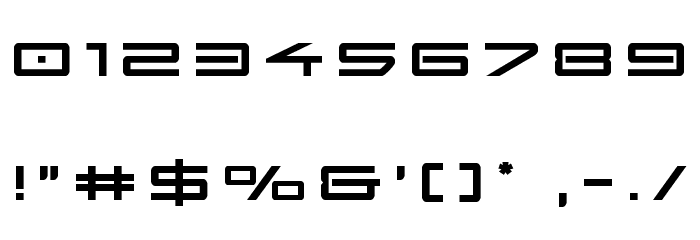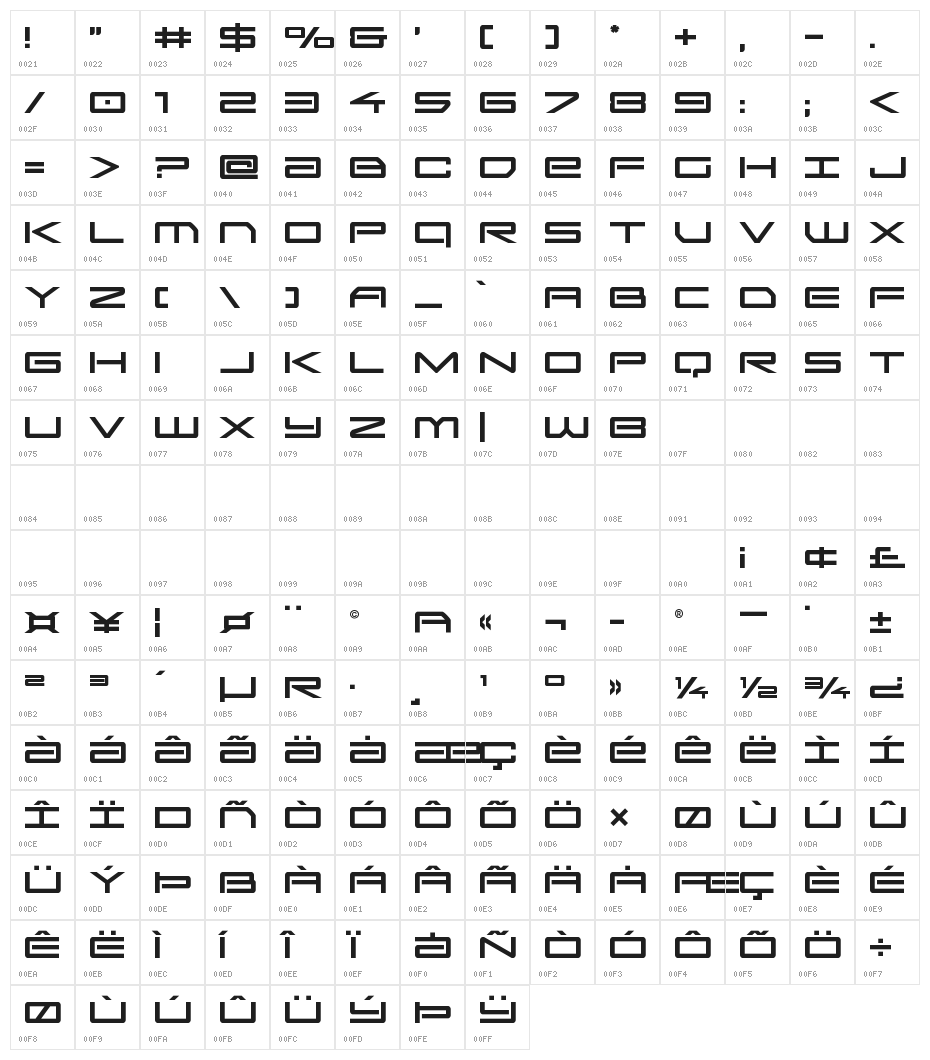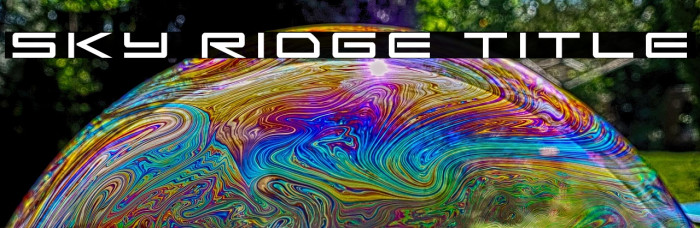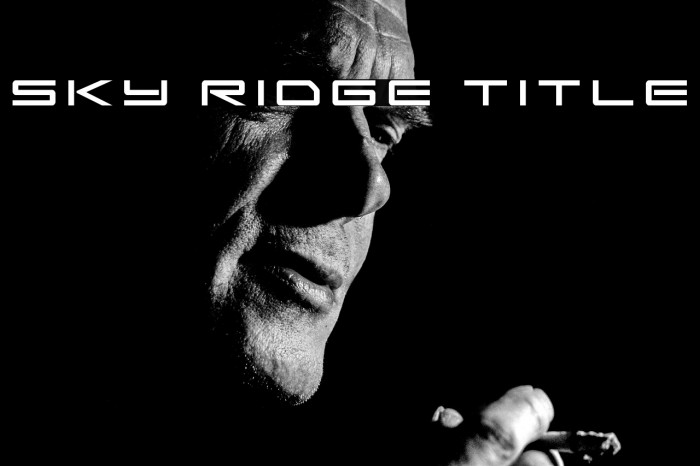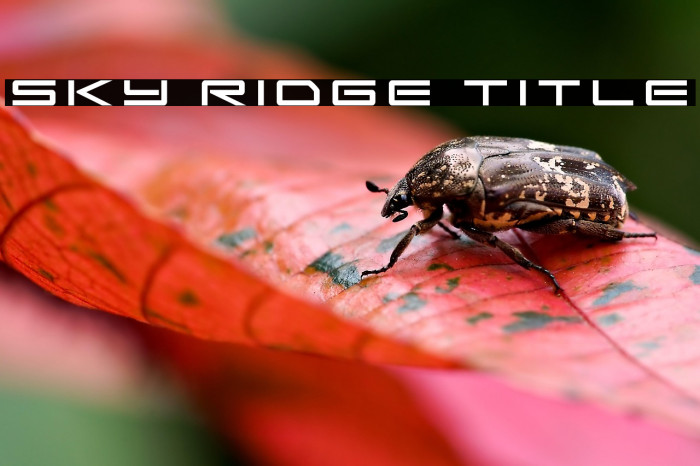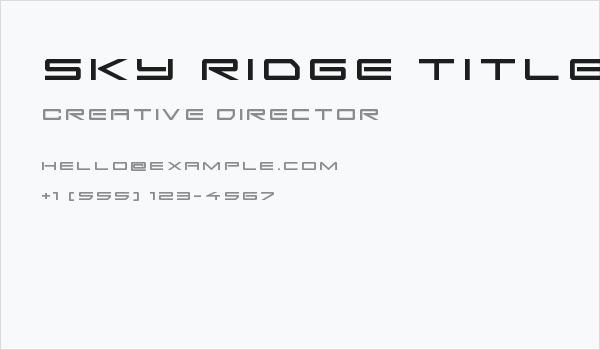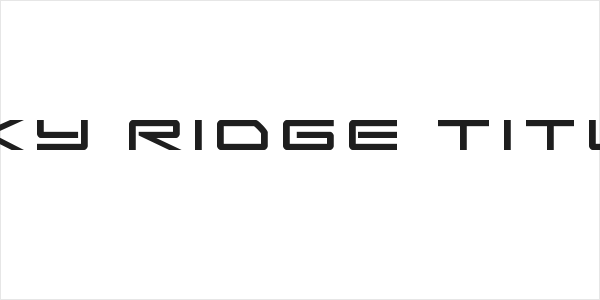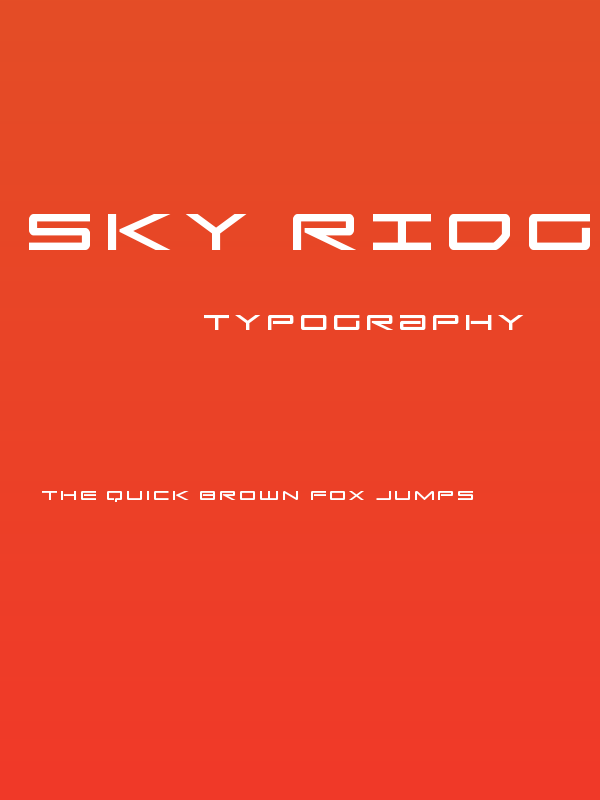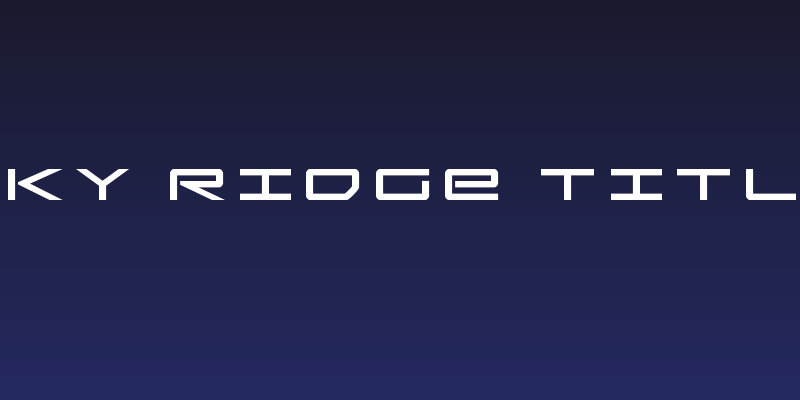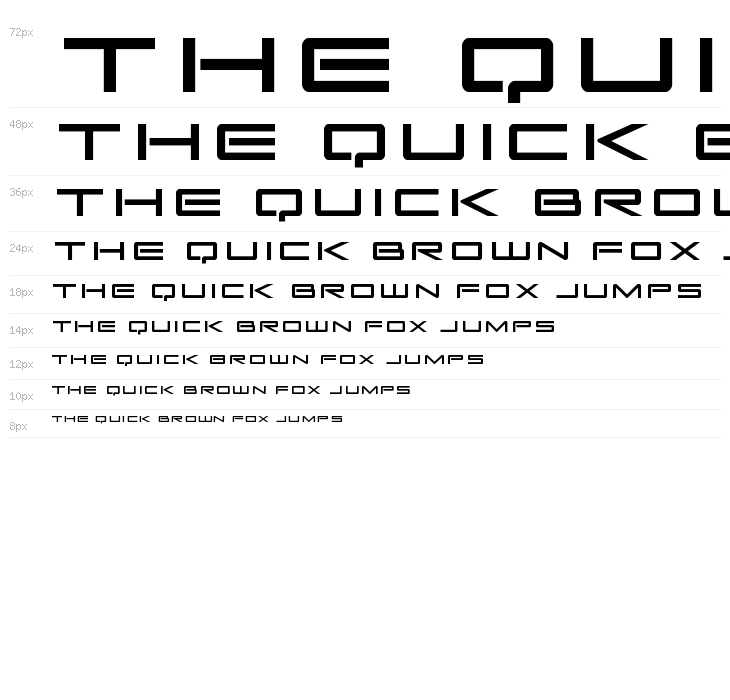
Sky Ridge Title Font
Sky Ridge Title Description
This font exhibits a futuristic and geometric design, characterized by its angular and structured letterforms. The uppercase and lowercase letters share a consistent style, with clean lines and a modern aesthetic. The numerals and special characters maintain this cohesive look, making the font suitable for digital and tech-oriented projects. Its uniform stroke width and sharp edges give it a sleek and contemporary feel, ideal for creating a bold visual impact.
| Proposed Projects | Ideal for technology branding, digital interfaces, sci-fi themed designs, and modern advertising. |